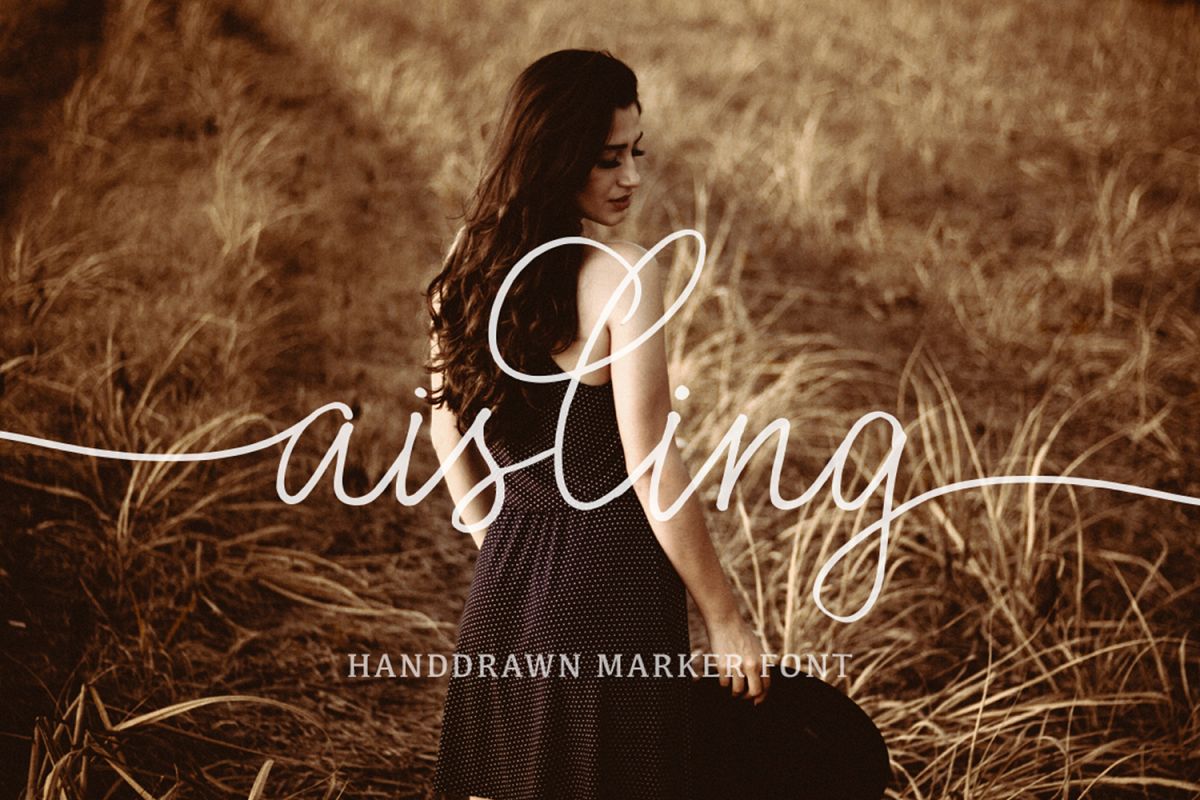
Aisling Font.
Aisling is a beautiful script font with Irish character.3 variants of letters for the uppercase and 7 variants of letters for the lowercase, make this font an unique tool for creating handdrawn texts, which are written with a brush and ink.